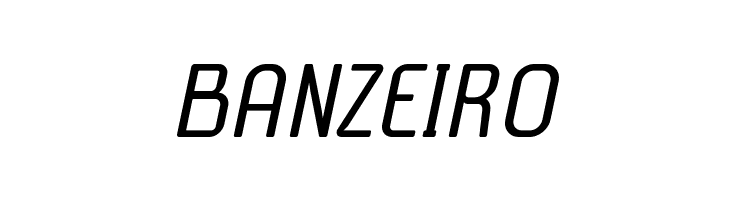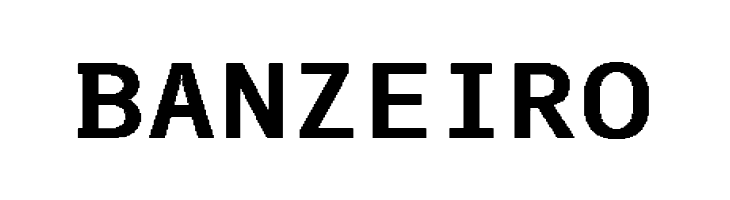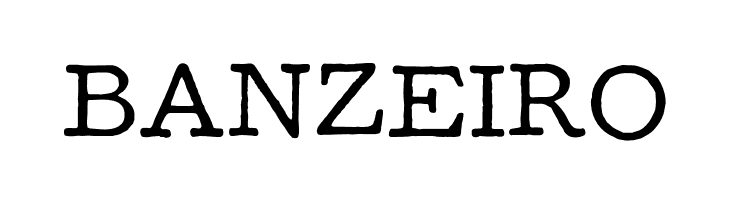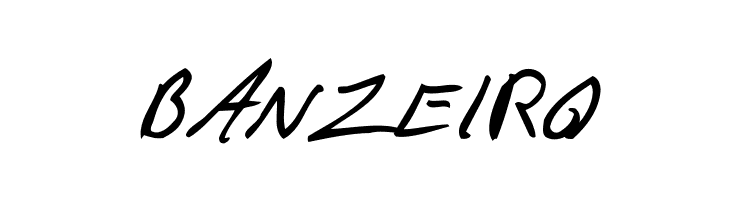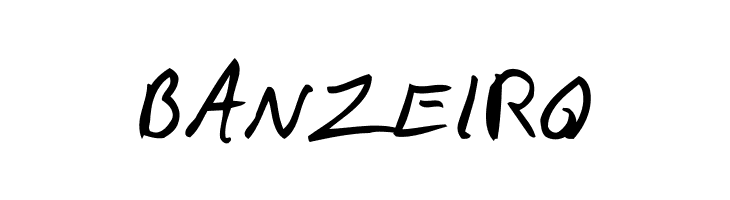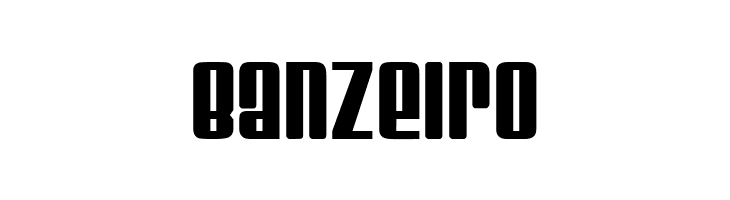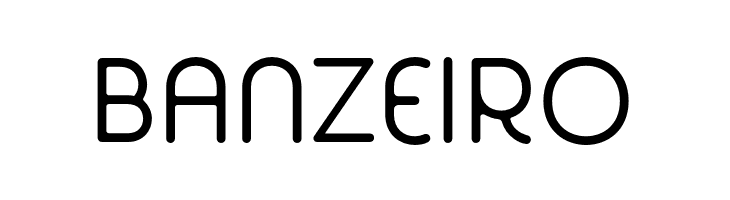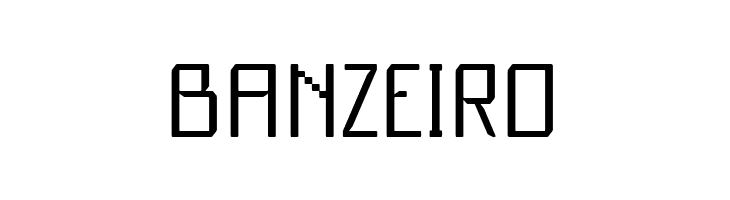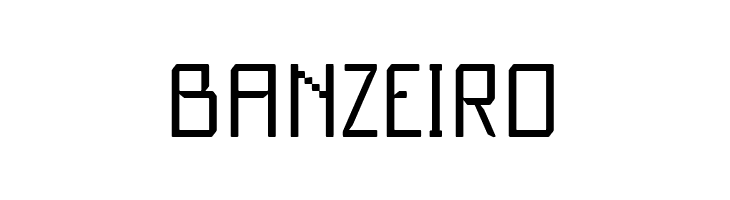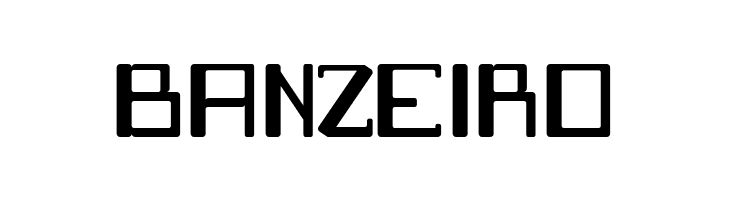
A bold, playful handwritten font with dynamic, irregular strokes.
A playful, handwritten-style font with bold, irregular strokes.
A bold, rugged font with a hand-drawn, distressed appearance.
A bold, energetic handwritten font with fluid and expressive strokes.
A bold, energetic handwritten font with a playful and dynamic style.
A bold, italicized handwritten font with dynamic and expressive strokes.
A bold, italic handwritten font with a lively and dynamic style.
A distressed, chaotic font with jagged edges and irregular strokes.
A modern, geometric font with angular shapes and clean lines, perfect for tech projects.
A bold, monospaced font with a typewriter-like aesthetic.
A bold, monospaced font with uniform strokes and clear readability.
A blackletter font with a typewriter texture, combining historical elegance with a vintage feel.
A classic slab serif font with bold serifs and uniform strokes, offering a vintage appeal.
A modern sans-serif font with rounded edges and uniform stroke width.
A modern, rounded font with smooth curves and a minimalist aesthetic.
A dynamic and fluid script font with elegant, flowing letterforms.
A clean, modern sans-serif typeface with uniform stroke width and balanced proportions.
A sleek, modern sans-serif font with a light, italic style.
A clean, modern sans-serif typeface with uniform stroke width and rounded edges.
A modern sans-serif font with an italic slant, offering elegance and readability.
A bold, modern sans-serif font with uniform strokes and balanced spacing.
A modern, italic sans-serif font with clean lines and balanced proportions.